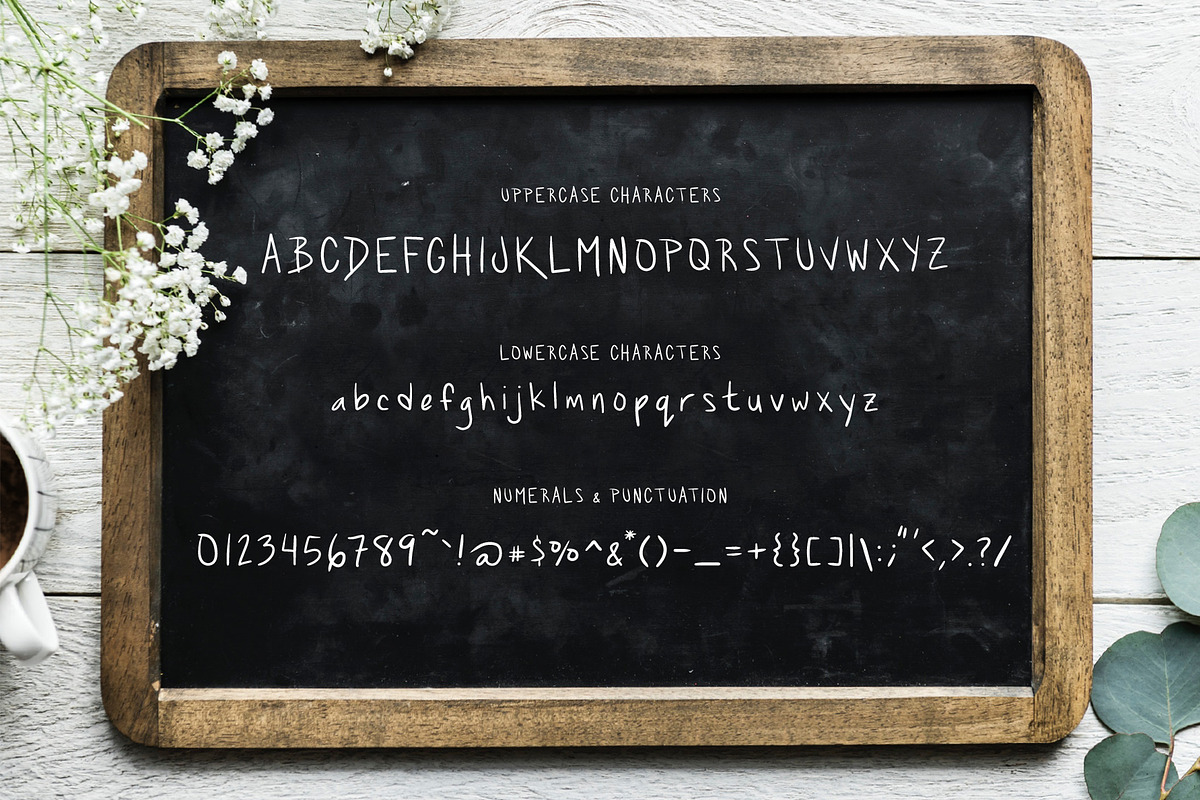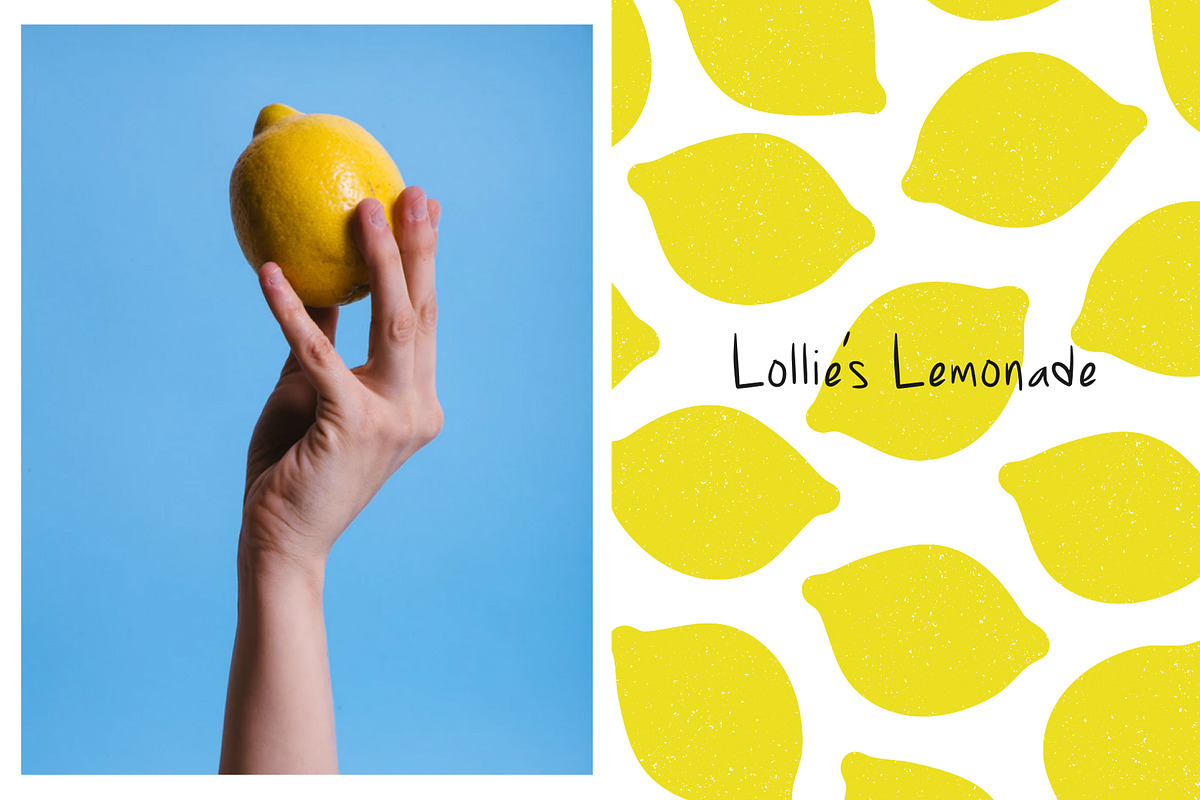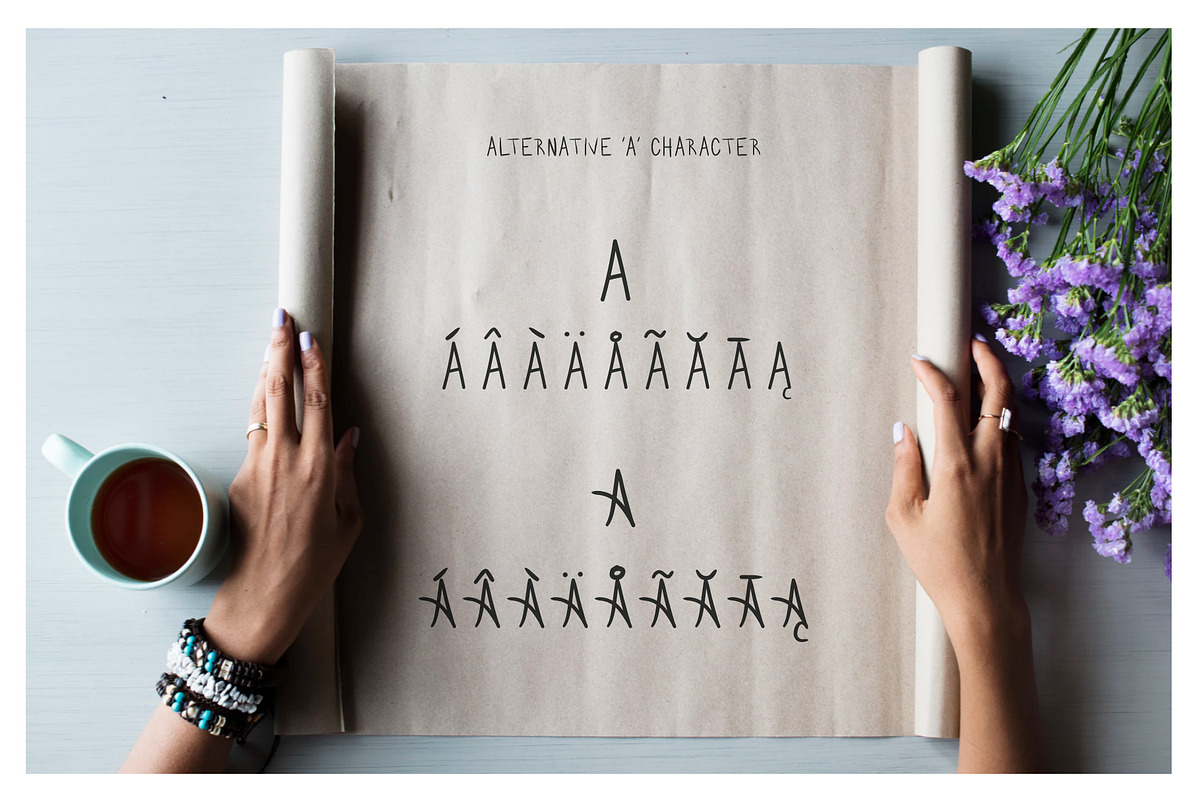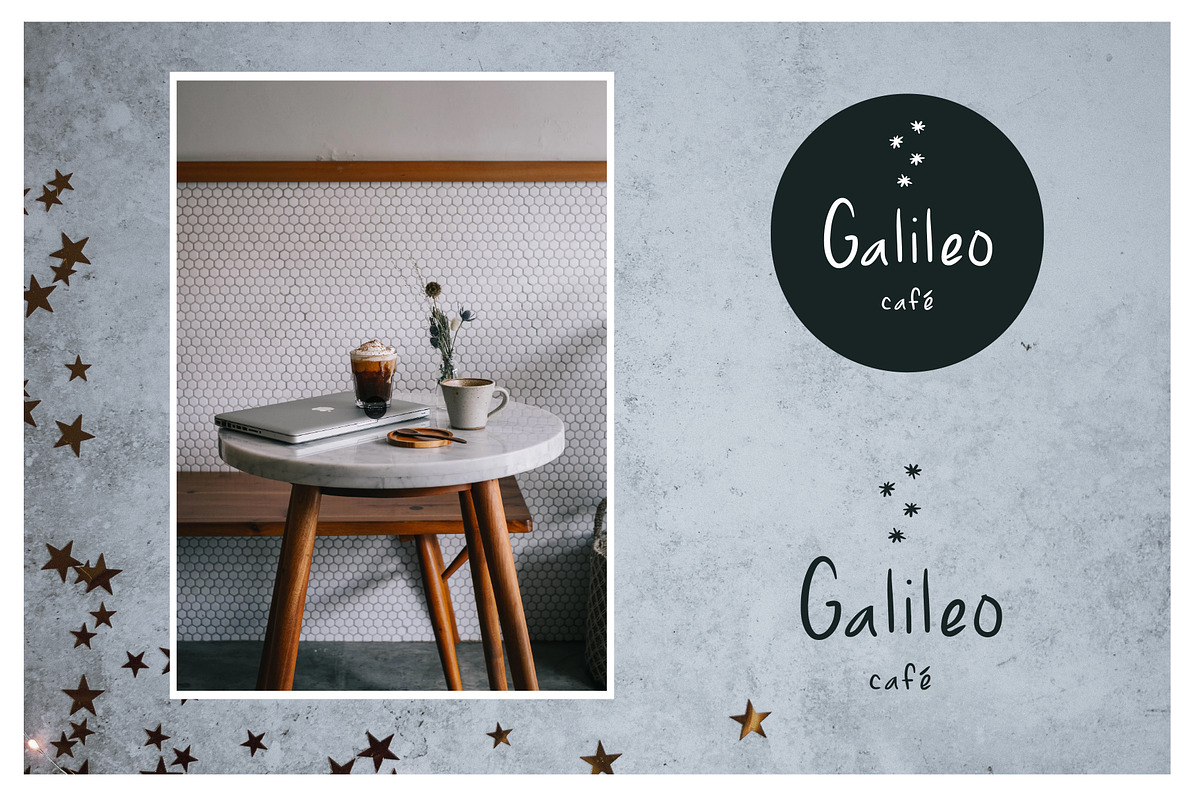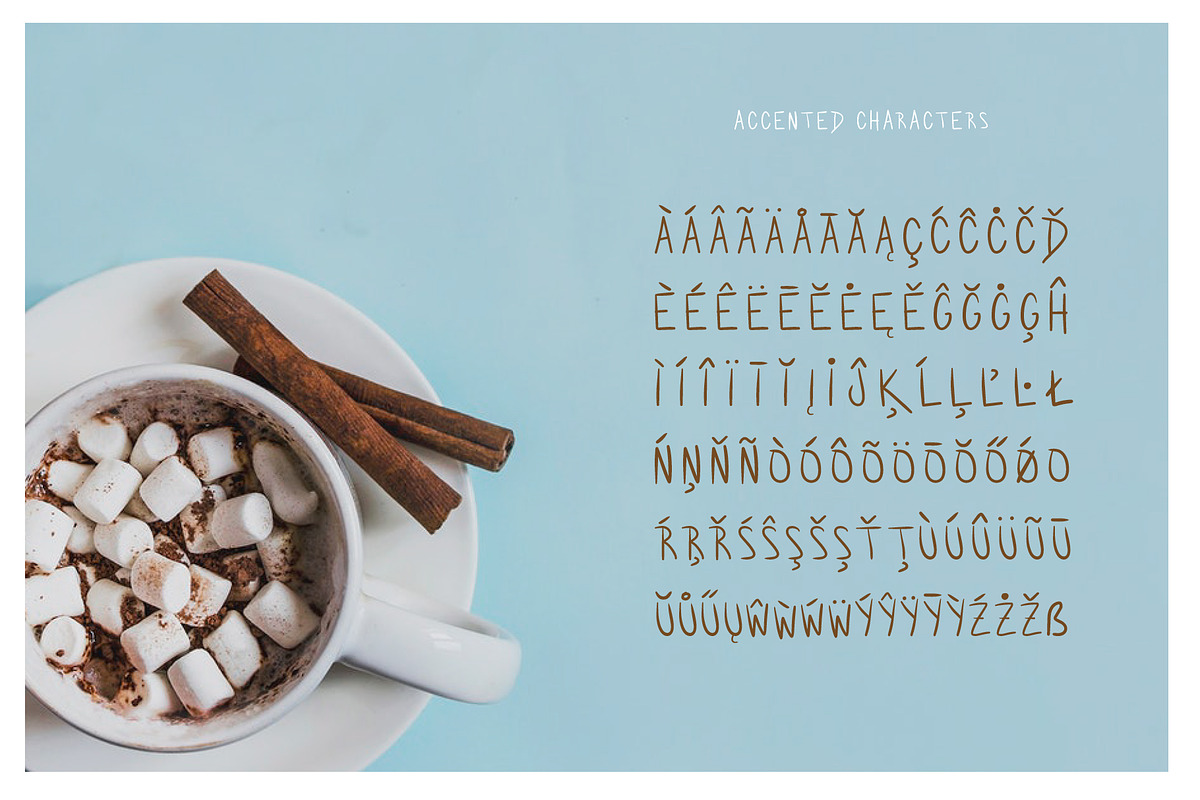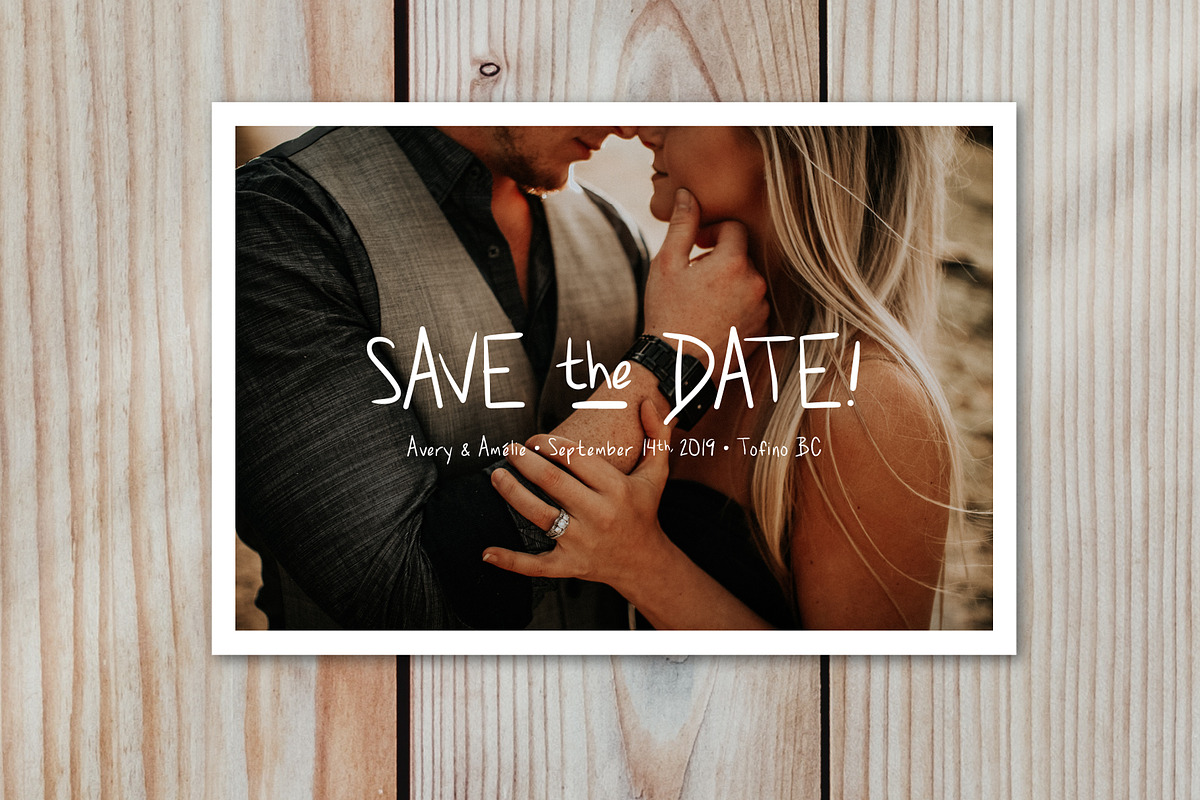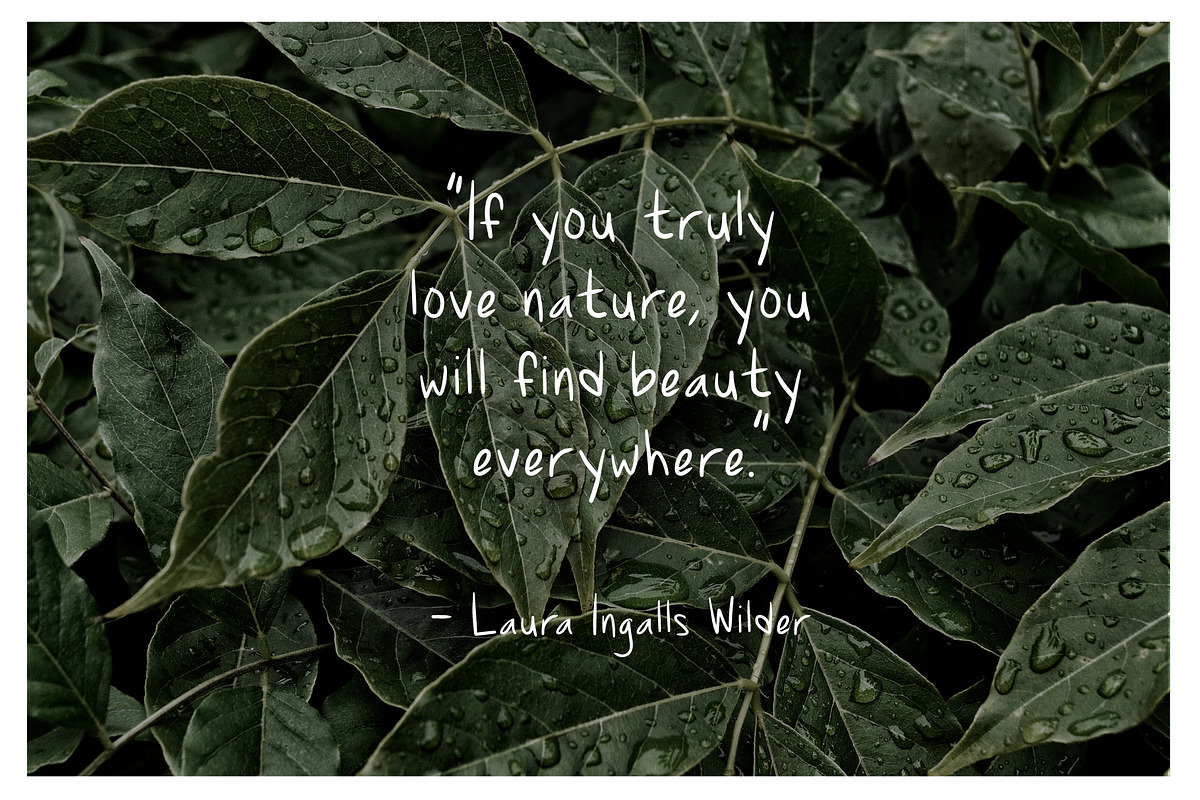
Hot Chocolate Handwritten Font
Introducing my newest font, 'Hot Chocolate'!
This playful handwritten font was inspired by the many lates nights I used to spend studying in coffee shops – Hours spent over a rotation of jasmine tea, London fogs and hot chocolates while writing note after note, or essay after essay (Can anyone else relate? ^^)
With technical imperfections, 'Hot Chocolate' is meant to have an organic feel that suits a note-taking or journaling aesthetic. This font works well for longer pieces of text, like quotes or cards, but can also hold it's own as a headline or logo font :)